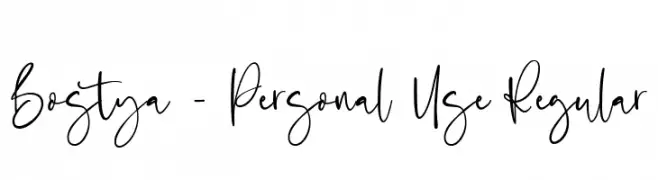
A lively and expressive handwritten font with fluid strokes and a personal touch.
A lively and expressive handwritten font with fluid, dynamic strokes.